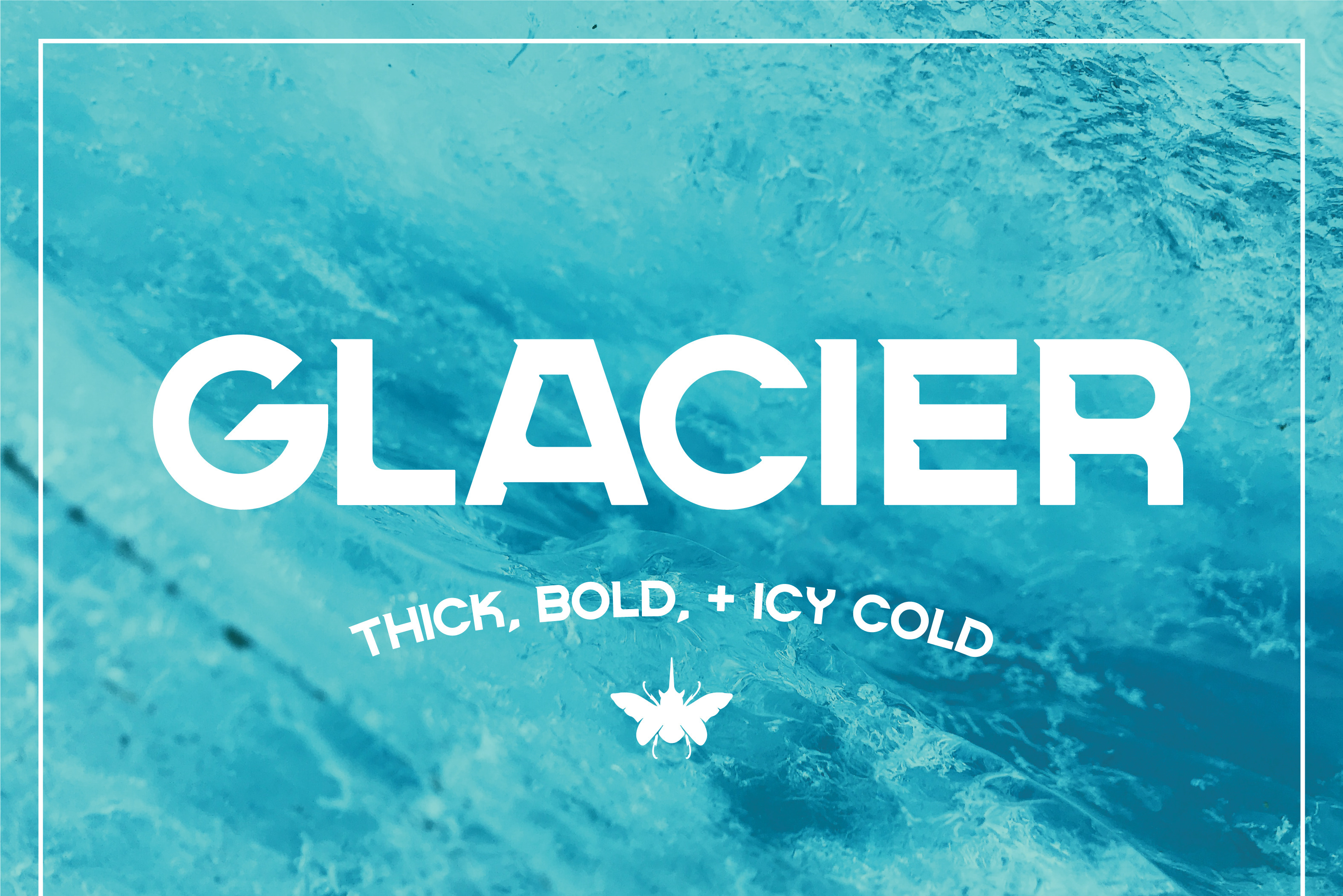
Glacier - Bold Serif Font
Glacier is a bold + thick font with a subtle serif, featuring a slick shadow effect on the horizontal lines. This font is designed by Nick Stewart of Vanguard Design Co. Enjoy!